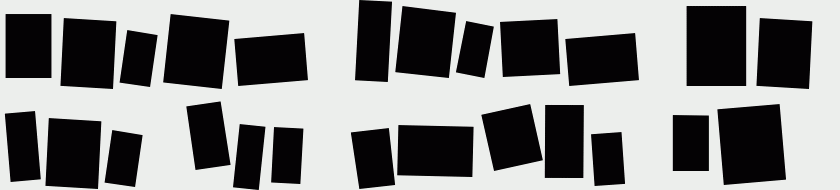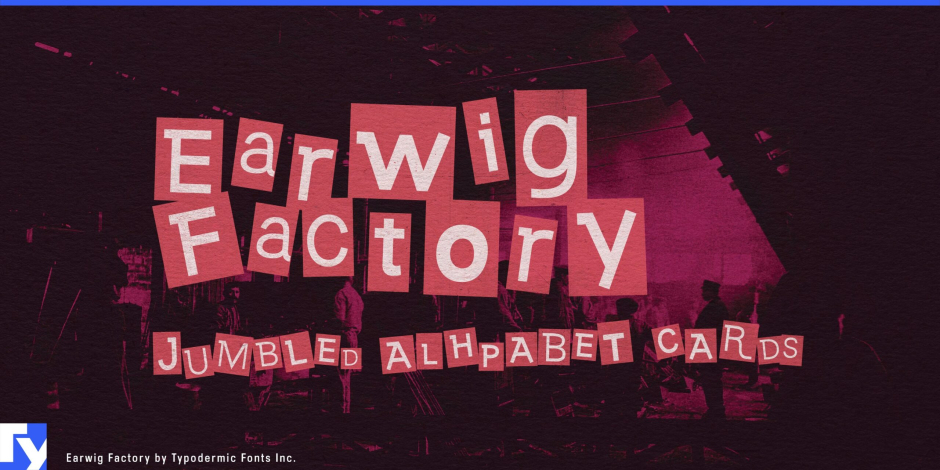
Earwig Fcatory
/ Earwig Factory
Earwig Factory is a lively collage-inspired typeface that mimics the look of cut-and-paste lettering without the manual work. Its uneven, card-based construction balances chaos and clarity, creating text that feels spontaneous yet readable. The family includes separate “cards” and “letters” styles, allowing layered effects with independent color, texture, or motion…ideal for animation or tactile print design. Automatic shuffling keeps repeated letters from matching, adding organic variation to every layout. Perfect for posters, packaging, and titles with a handmade edge, Earwig Factory delivers playful disorder with professional precision.
Designer: Raymond Larabie